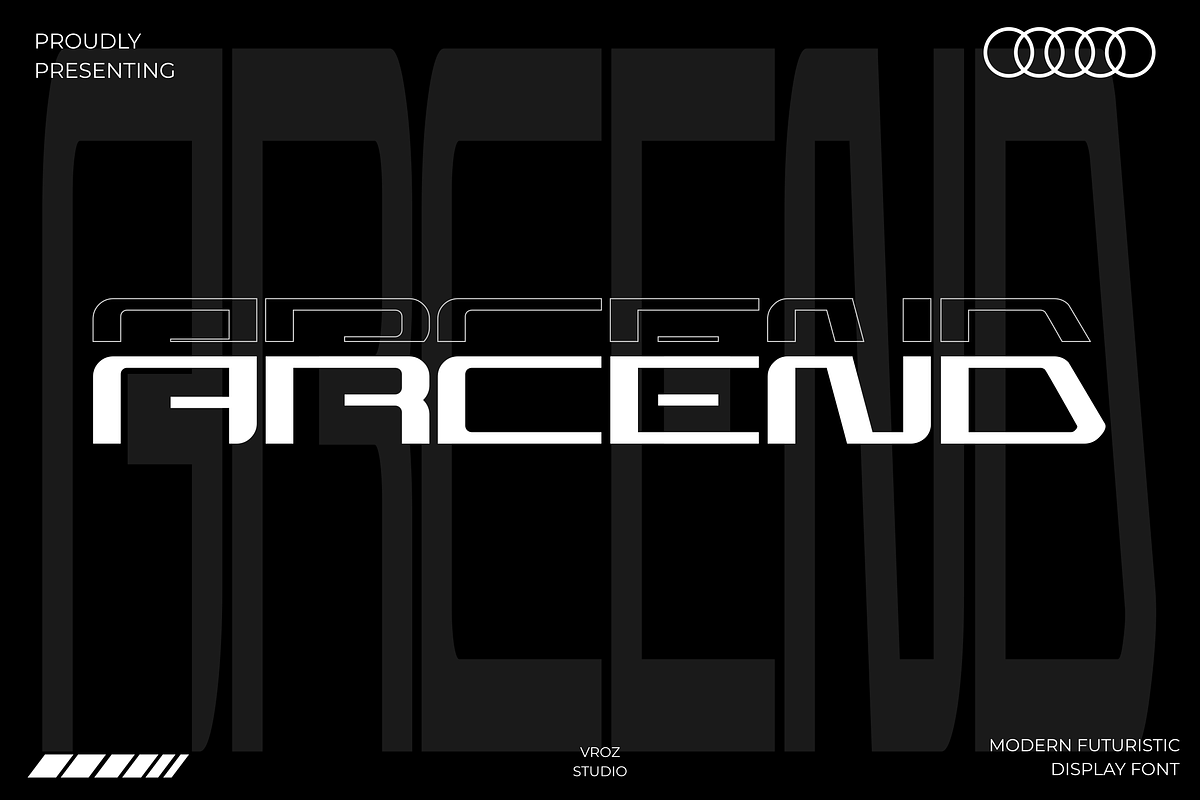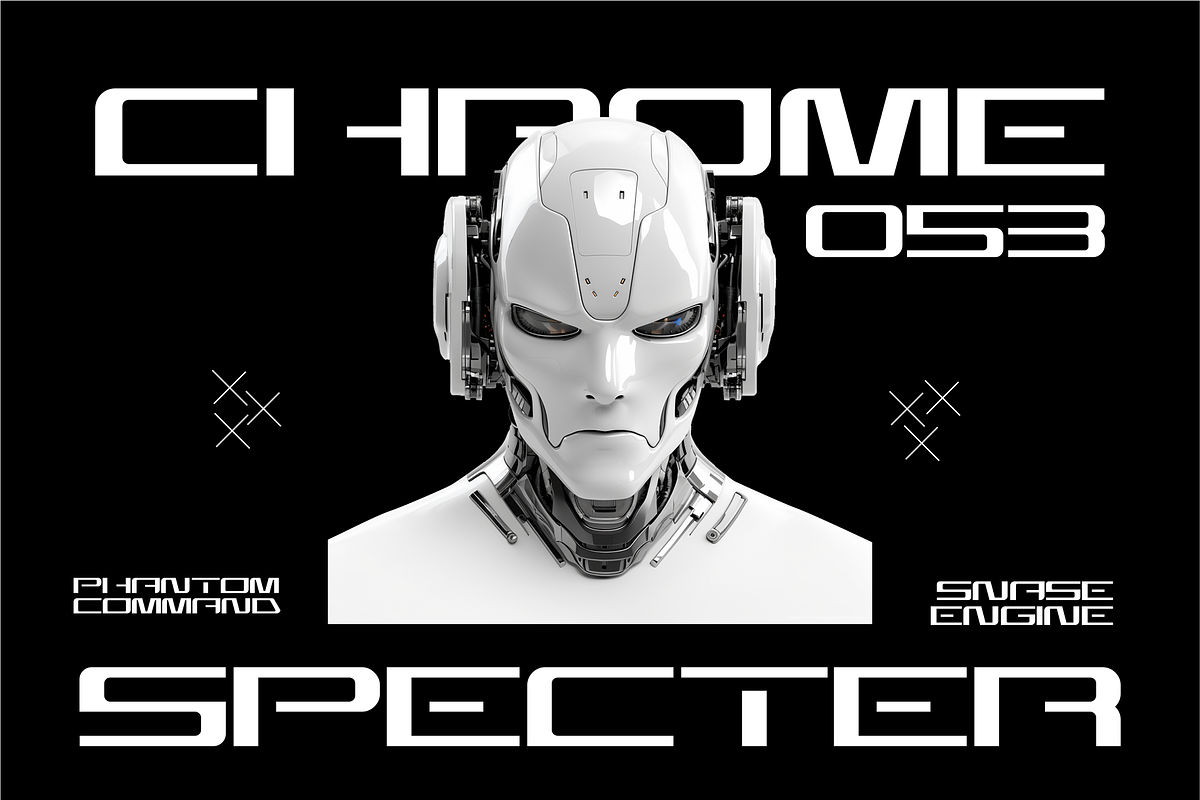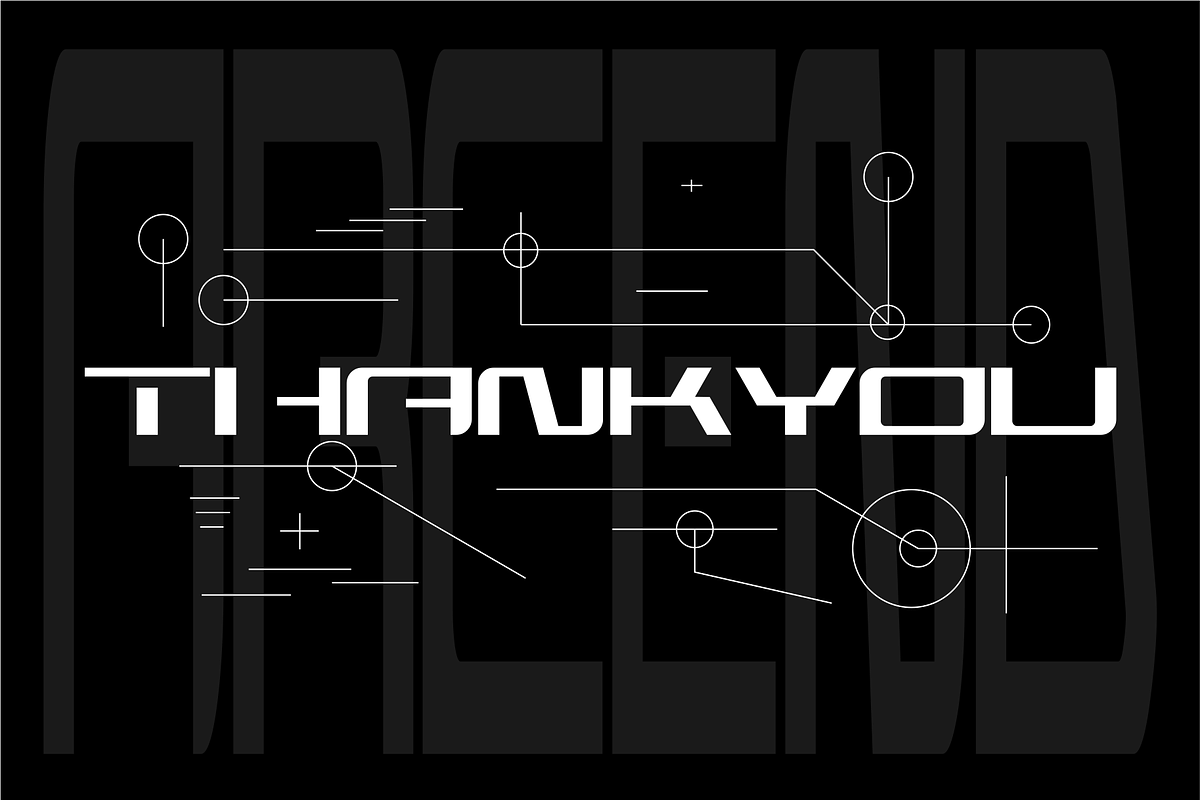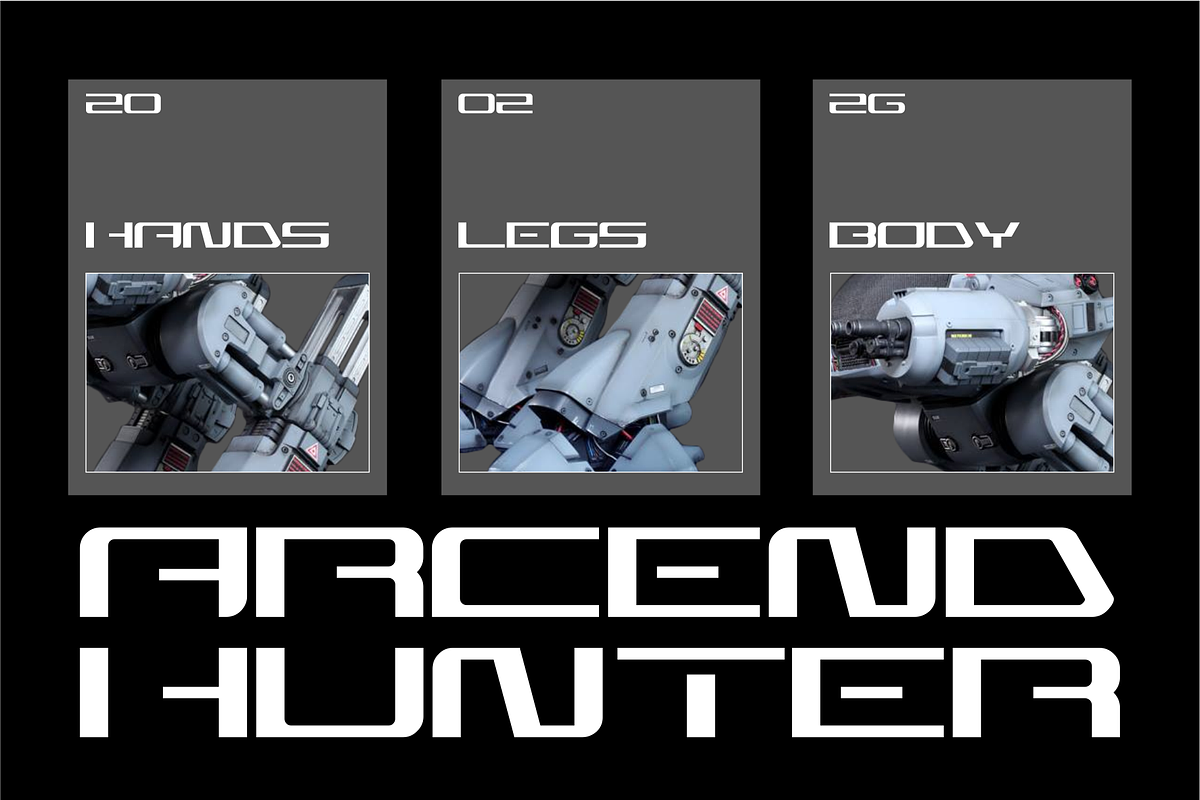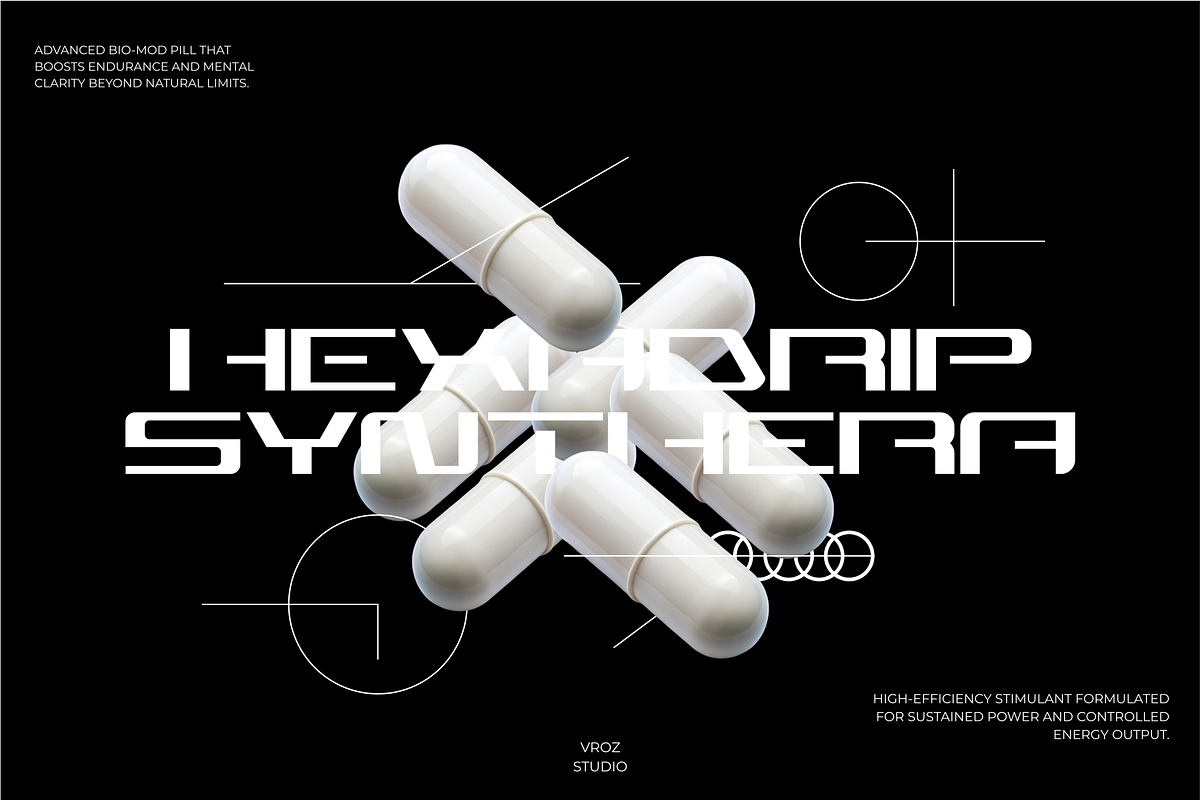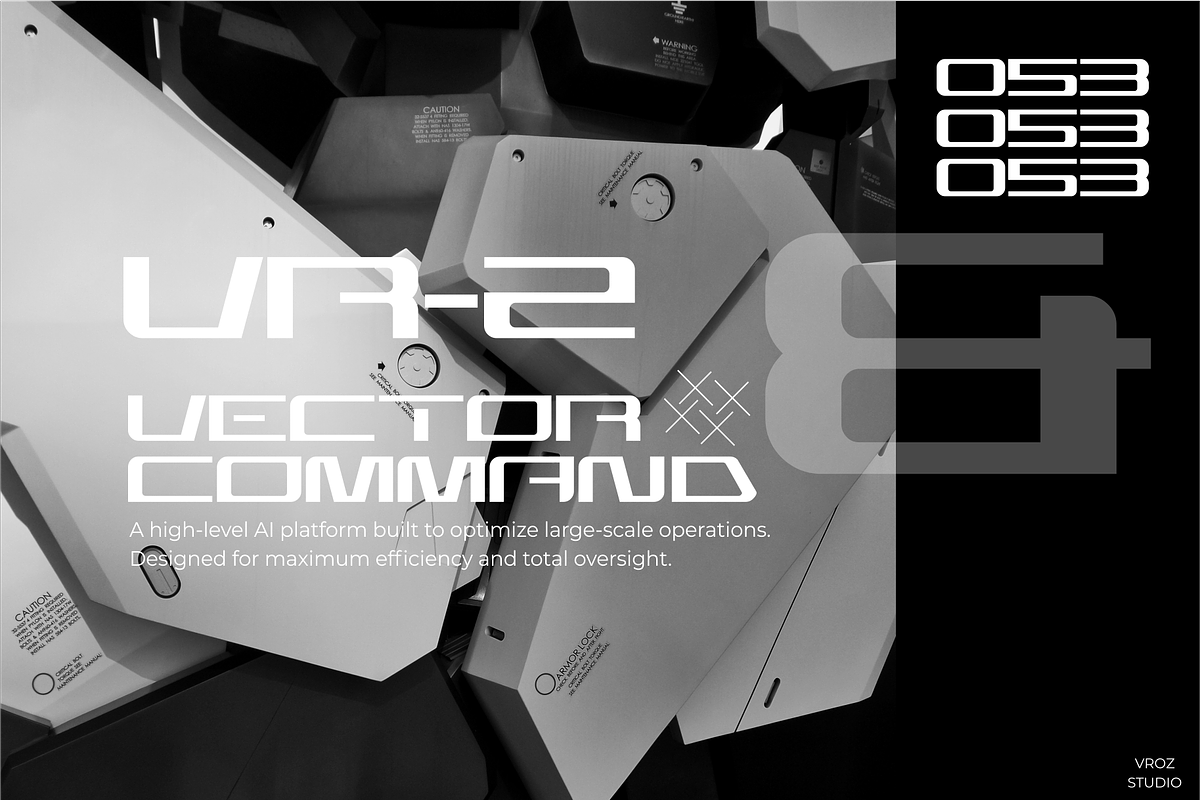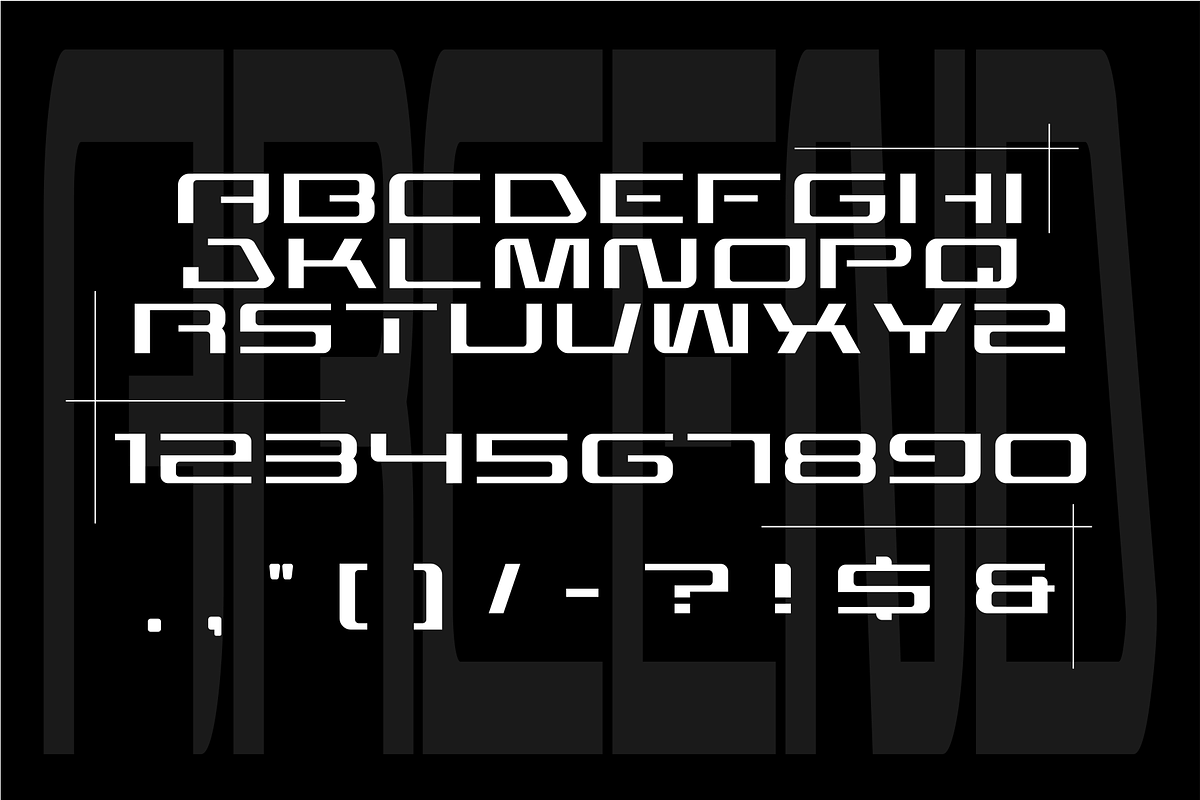
ARCEND - Futuristic Modern
ARCEND is a futuristic modern sans serif font crafted for clarity, precision, and contemporary design needs. With its geometric structure, clean cuts, and smooth transitions, ARCEND delivers a confident and forward-looking visual style perfect for modern digital environments.
Designed to work seamlessly across a wide range of creative projects, ARCEND is ideal for branding, technology visuals, gaming graphics, posters, UI/UX layouts, and web interfaces. Its strong yet minimalist character allows it to stand out while maintaining a clean and professional appearance.
ARCEND pairs beautifully with other modern sans serif or classic serif fonts, giving designers flexibility when building sophisticated layouts. It’s a reliable choice for projects that require a futuristic tone with a versatile and timeless foundation.
• Futuristic modern sans serif style • Clean geometric letterforms • Consistent stroke weight • High readability at small and large sizes • Suitable for tech, digital, and gaming projects • Ideal for branding, headlines, and UI design